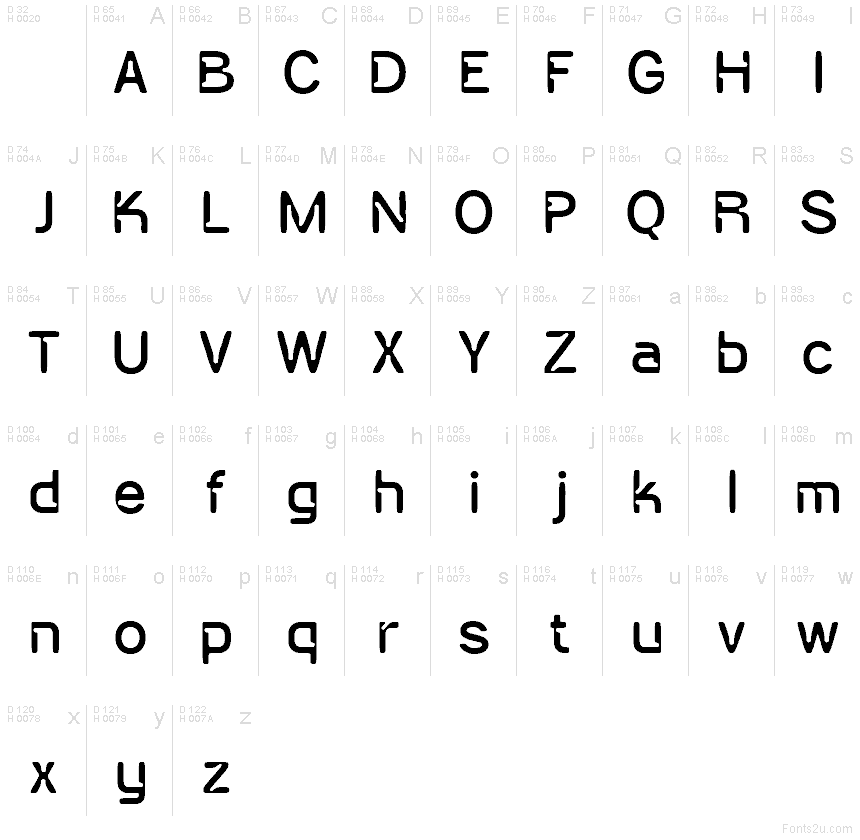
CSThomasDrawn-Regular Demo
CS Thomas Drawn font by Craft Supply Co. is a display futuristic typeface. With rounded geometric letters and minimalistic clean appearances, this modern font is ready to catch eyes wherever it’s used. The uniform geometrical shapes capture each detail the same way resulting in giving flawless writings.
A free futuristic display creation for bold titles, poster designs, magazine/cover designs, apparel design, headlines (print or web), logos & branding projects among others.